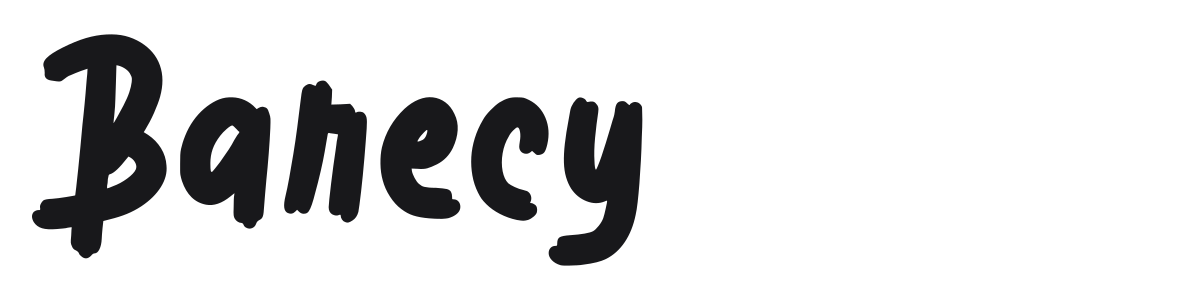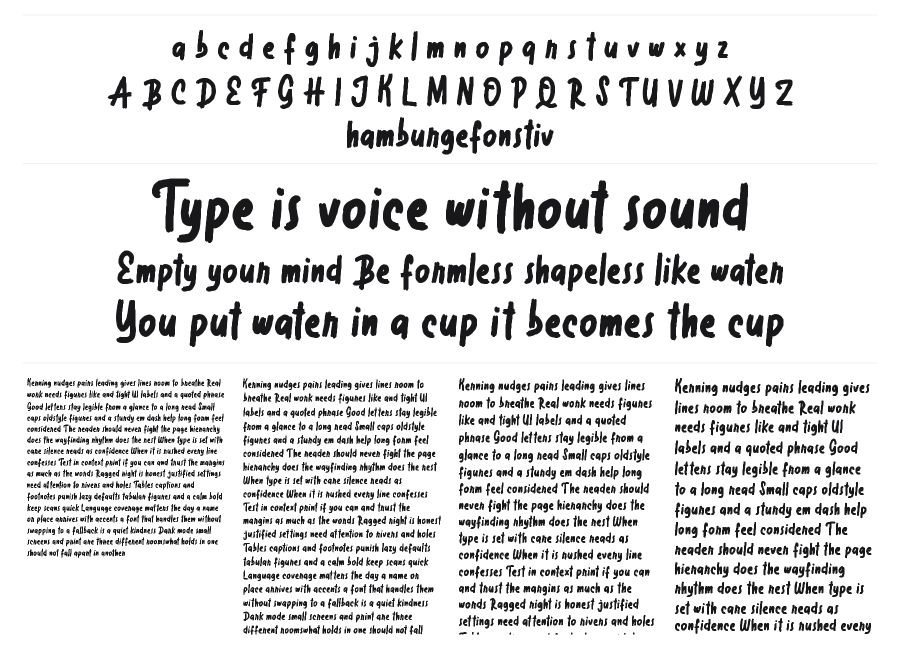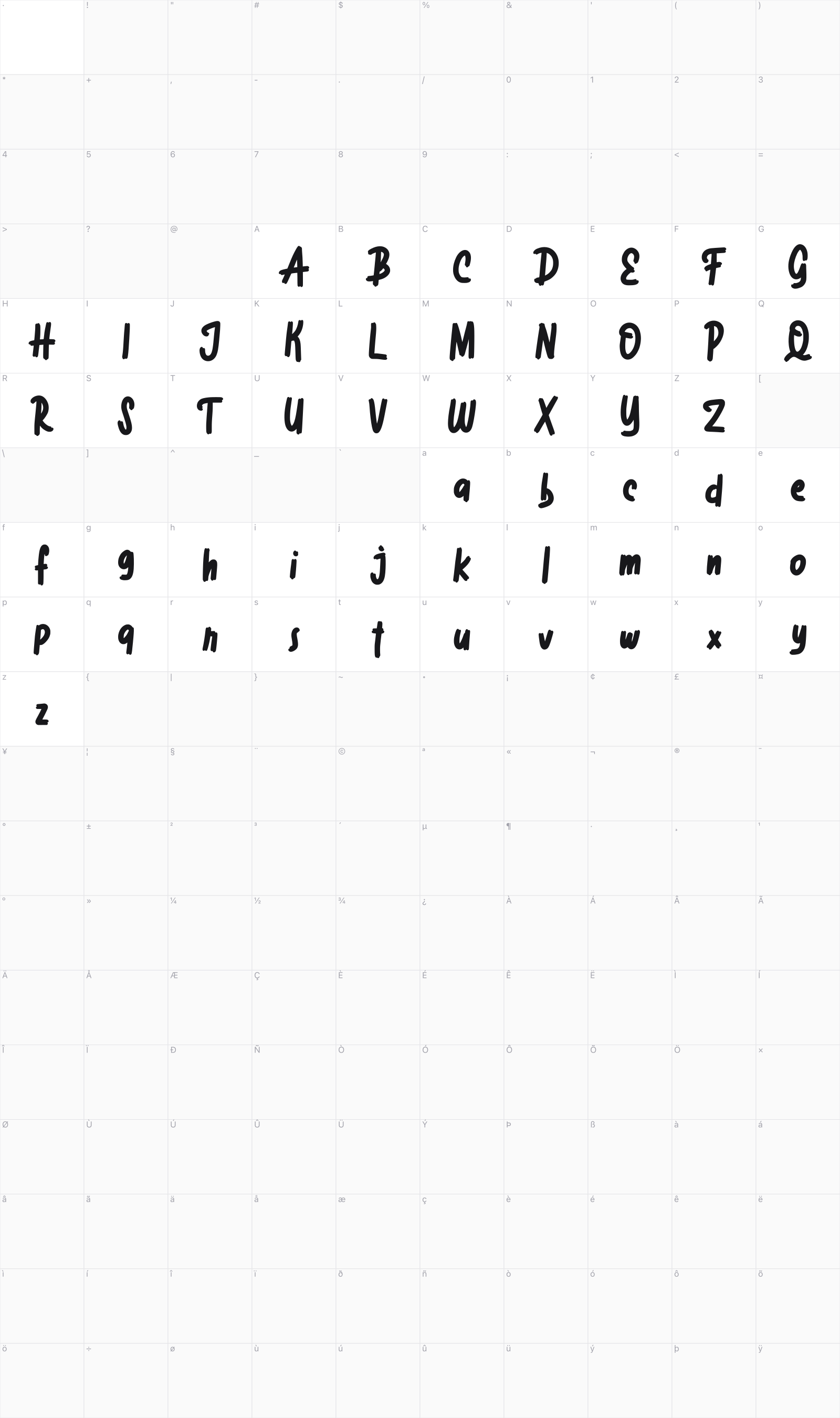
Barecy
Barecy is a bold casual hand-lettered font with the spontaneous energy of a thick marker drawn fast. The slightly wobbly stroke edges and rounded terminals keep it feeling warm and approachable rather than polished. It works well for youth brands, food packaging, and any headline that needs personality without pretension.